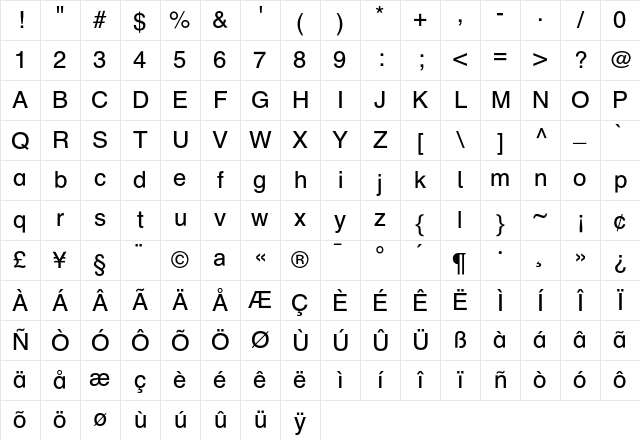
SchulbuchNord Normal Free Font
SchulbuchNord Normal
SchulbuchNord Family
SchulbuchNord Normal
Design Context for SchulbuchNord
SchulbuchNord is a composed and adaptable typeface that performs quietly and consistently across a wide range of design contexts.